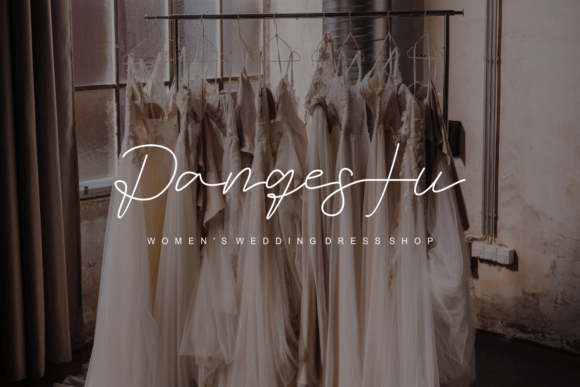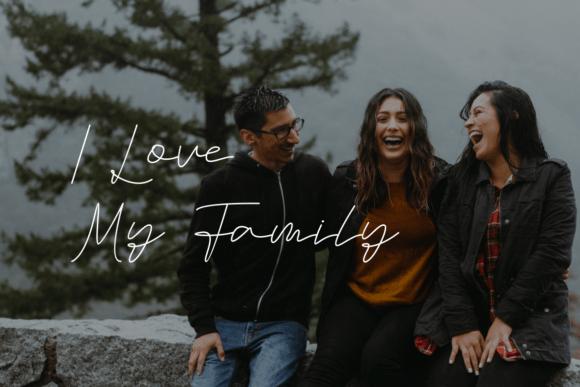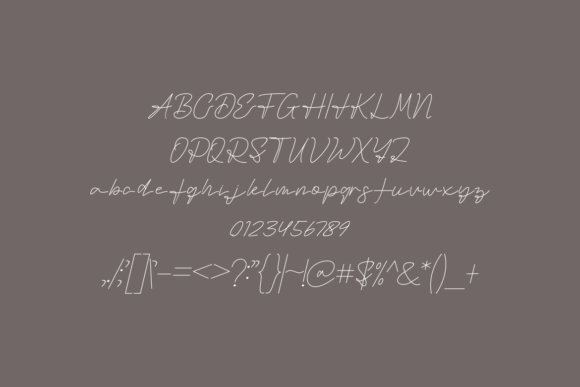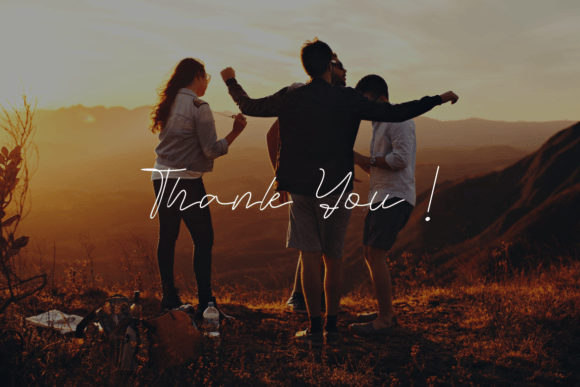
Introduction to Raestu Font
This exquisite handwritten font is full of character and charm, with elegant curves and delicate strokes that convey a sense of luxury and sophistication.
Raestuโs flowing, organic style evokes the feel of a handwritten note, making it perfect for adding a personal touch to invitations, packaging, and branding materials .